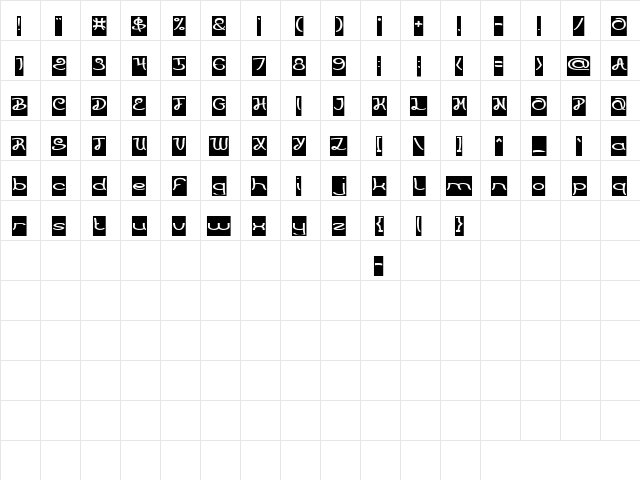
PRIMITIVE HEART-Inverse Regular
Design Context for PRIMITIVE HEART-Inverse Typeface
PRIMITIVE HEART-Inverse is a composed and adaptable typeface that performs quietly and consistently across a wide range of design contexts.
Pro Tip: Use PRIMITIVE HEART-Inverse in both headline and body roles to test its range before committing to a single application.